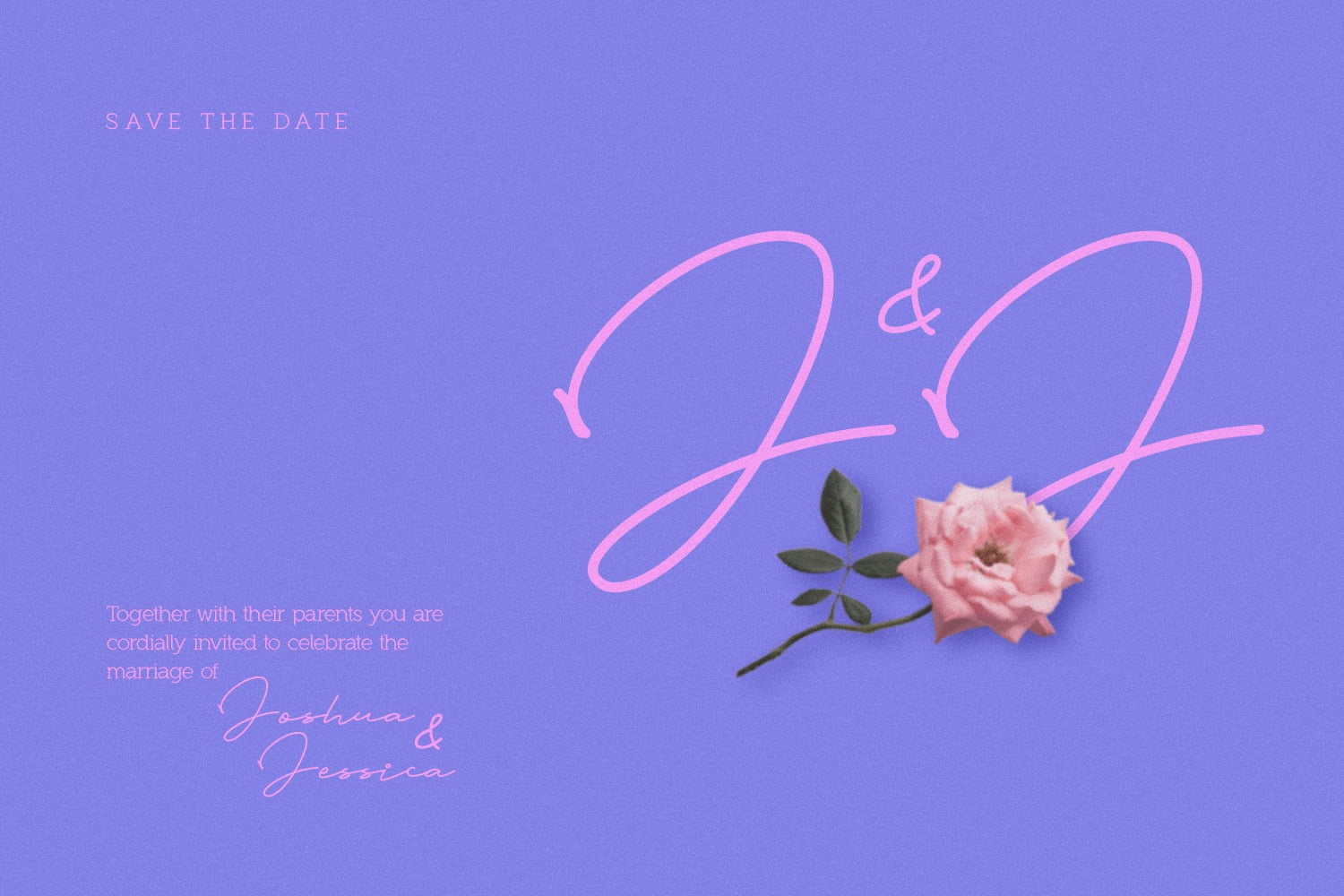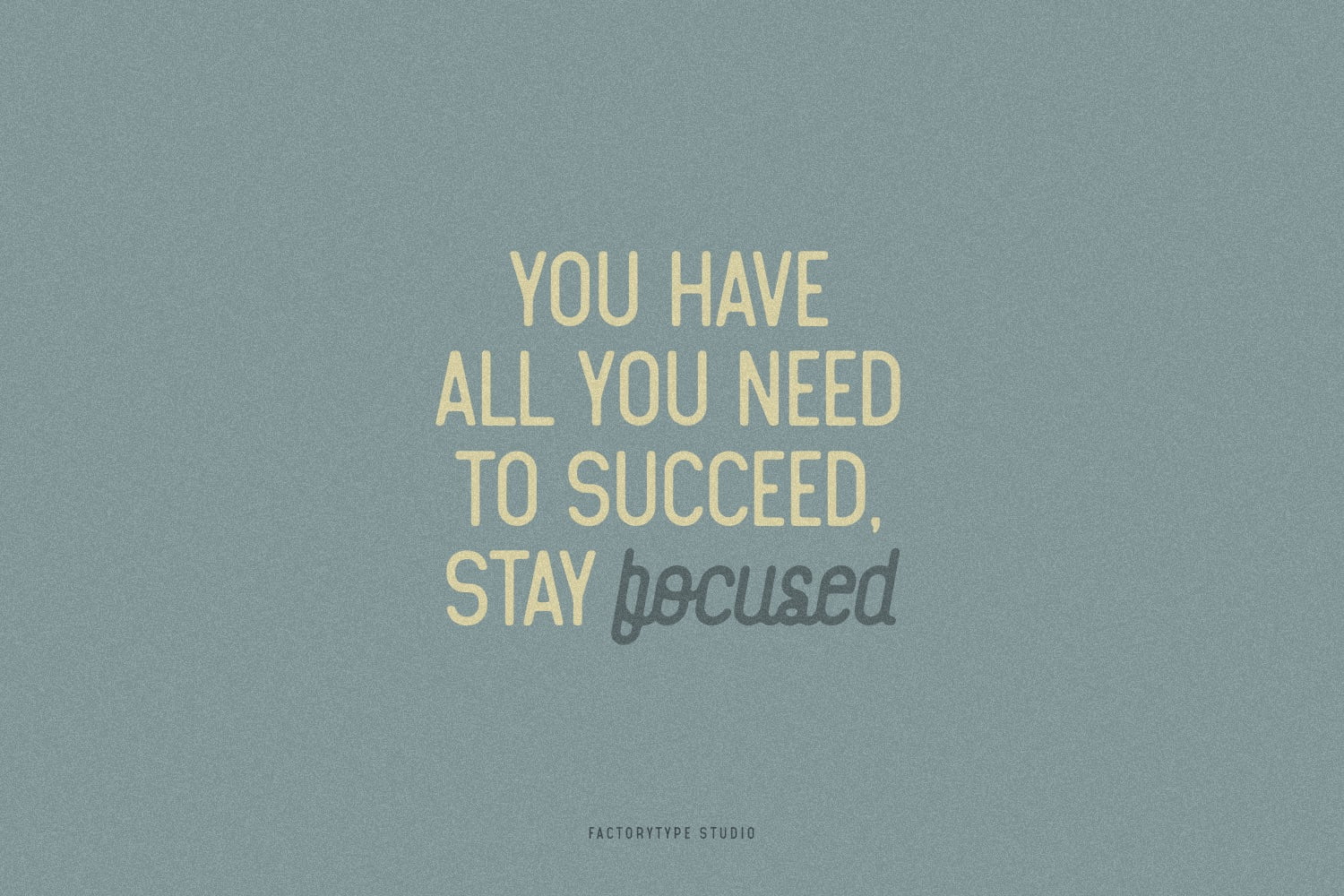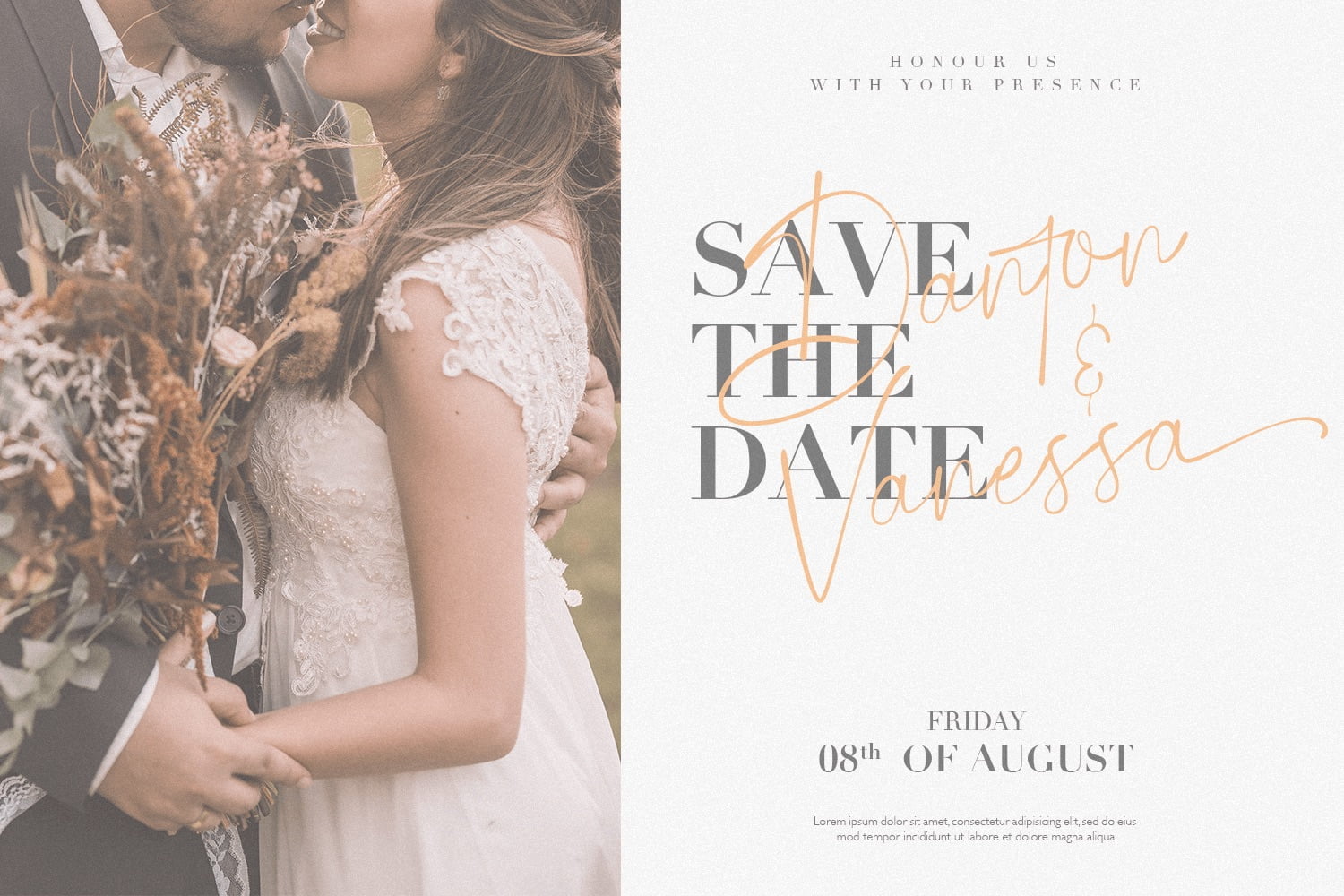
Why Script Fonts Are Perfect for Personalizing Your Greetings
Greetings are an essential part of our lives, and we all want to make them special for our loved ones. One way to personalize your greetings is by using script fonts. Script fonts are a type of font that mimics cursive handwriting and are perfect for adding a personal touch to your messages.
Castlegar Handwriting
Script Fonts Add a Touch of Elegance
Using script fonts in your greetings can add a touch of elegance to your message. These fonts have a fluid and sophisticated look that can make your text stand out. They are perfect for adding a touch of class to your wedding invitations, anniversary cards, or any other special occasion.
Elysia Handwriting
Script Fonts Are Versatile
Script fonts come in a variety of styles, from classic to modern. This makes them versatile and suitable for different occasions. You can use a formal script font for a wedding invitation, a playful script font for a birthday card or a romantic script font for a love letter.
Lethbridge Handwriting
Script Fonts Can Convey Emotion
Script fonts are perfect for conveying emotion in your messages. These fonts have a personal touch that can make your text feel more intimate and heartfelt. For example, a handwritten script font can make a sympathy card feel more personal and sincere.
Mondee Handwriting
Script Fonts Stand Out
Using a script font can make your message stand out. These fonts are not commonly used, and using them can make your text more memorable. If you want to make an impression with your greeting, using a script font can help you achieve that.
Nottingham Font Duo
Script Fonts Are Easy to Read
Contrary to popular belief, script fonts are easy to read. These fonts are designed to mimic cursive handwriting, which makes them more natural to read than other fonts. However, it is important to choose a legible script font that is easy to read.
Conclusion
Script fonts are perfect for personalizing your greetings because they add a touch of elegance, are versatile, can convey emotion, stand out, and are easy to read. When choosing a script font, make sure to select one that is appropriate for the occasion and easy to read. By using script fonts, you can make your greetings more personal and memorable.